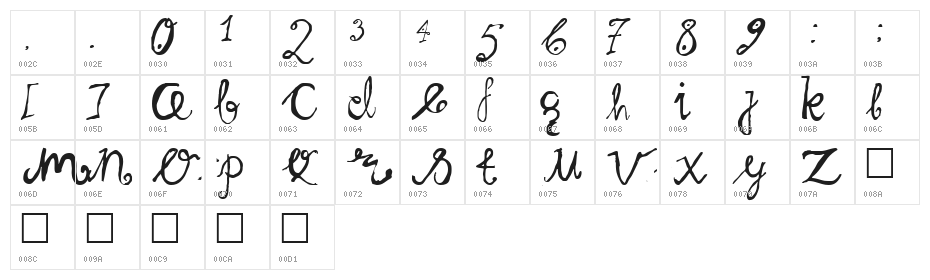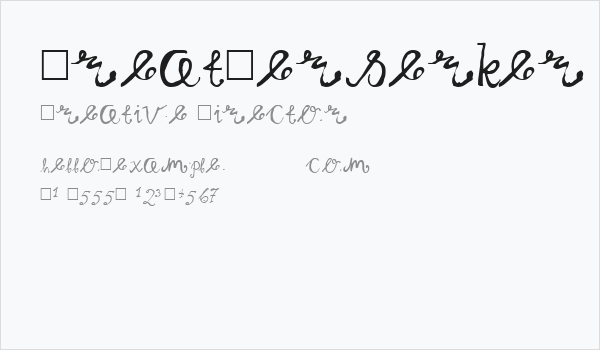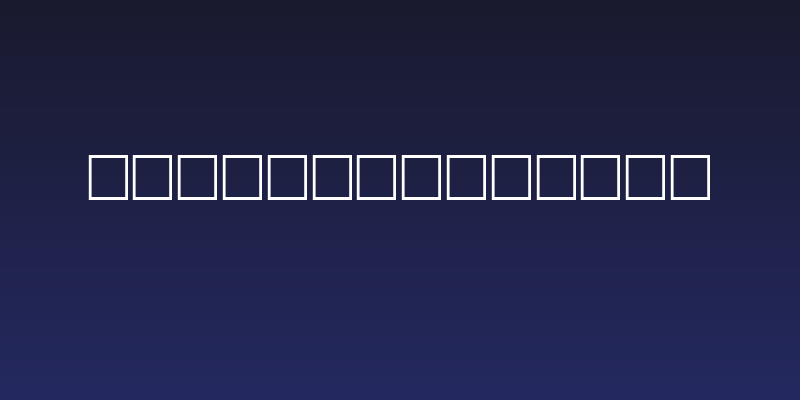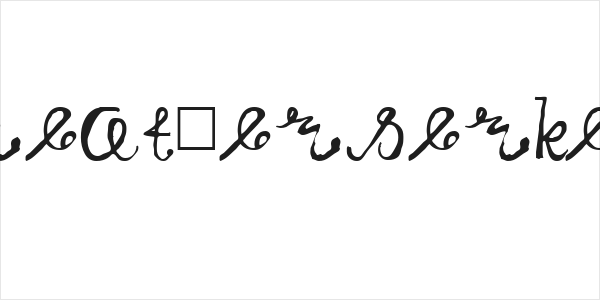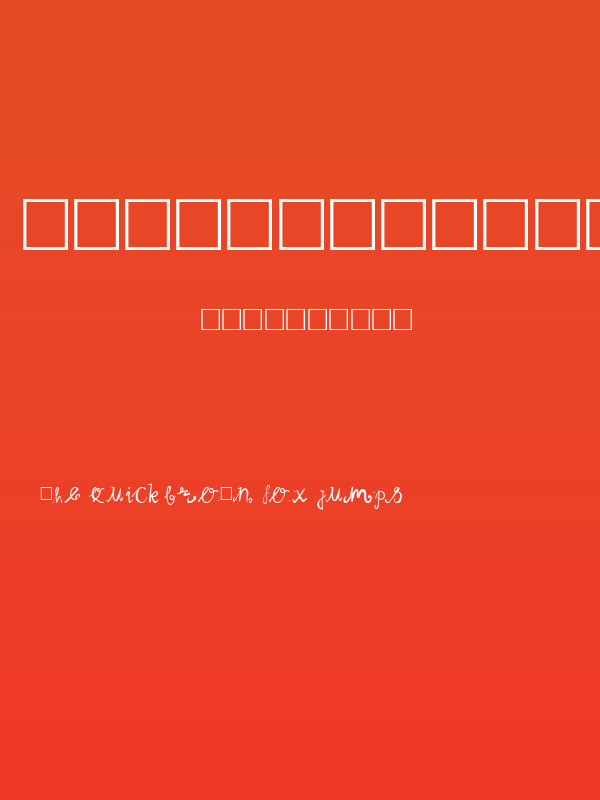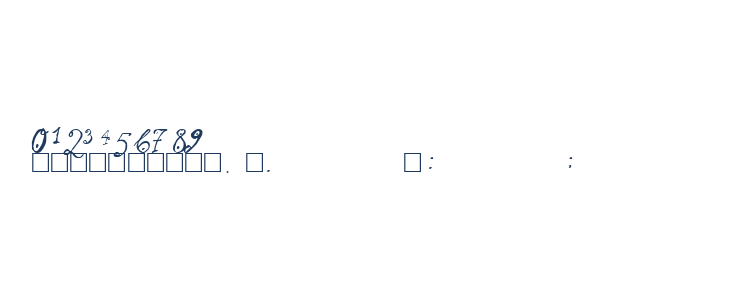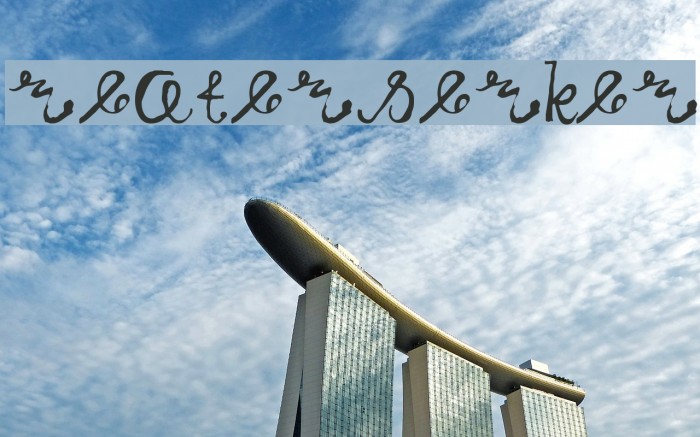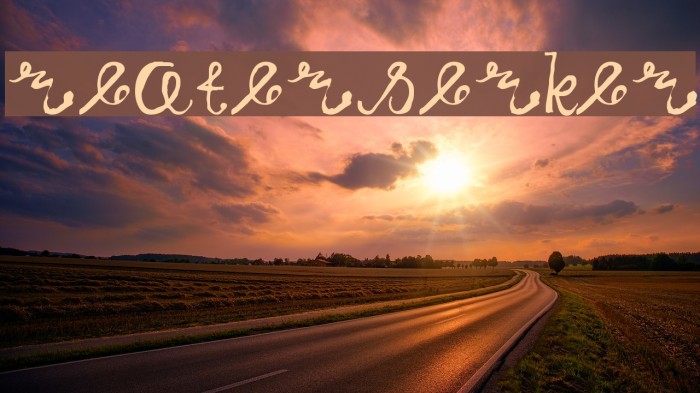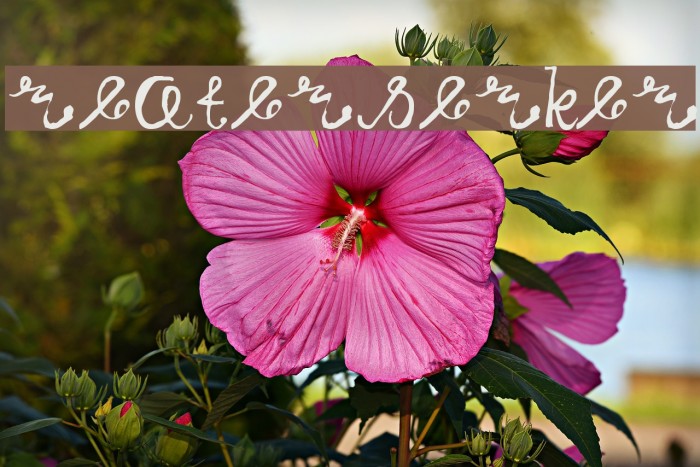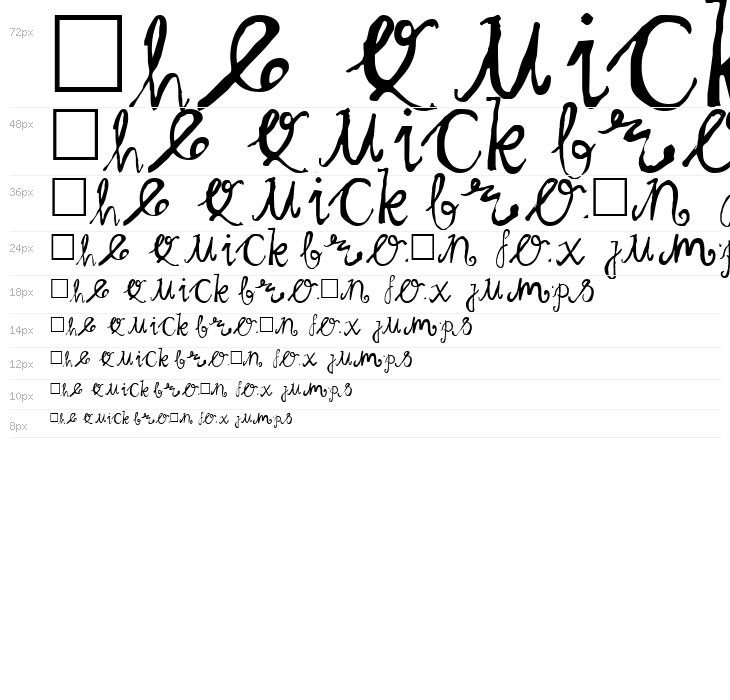
GreatBerserker Font
GreatBerserker Description
This font features an artistic and whimsical design, characterized by its flowing, cursive style. The letters are crafted with a playful and dynamic flair, incorporating loops and swirls that give it a lively appearance. The uppercase letters are bold and expressive, while the lowercase letters maintain a consistent fluidity. Numbers and special characters follow the same artistic theme, adding a unique touch to any text. The overall design is reminiscent of handwriting, with a touch of elegance and creativity.
| Use Case | Logos, Invitations, Artistic Posters |
| Proposed Projects | Ideal for creative projects such as invitations, greeting cards, artistic posters, and branding materials that require a personal touch. |